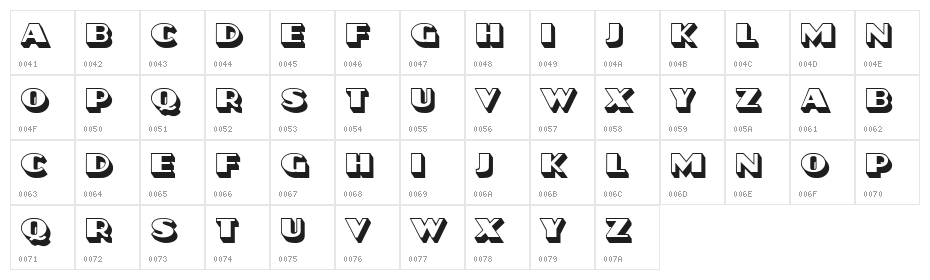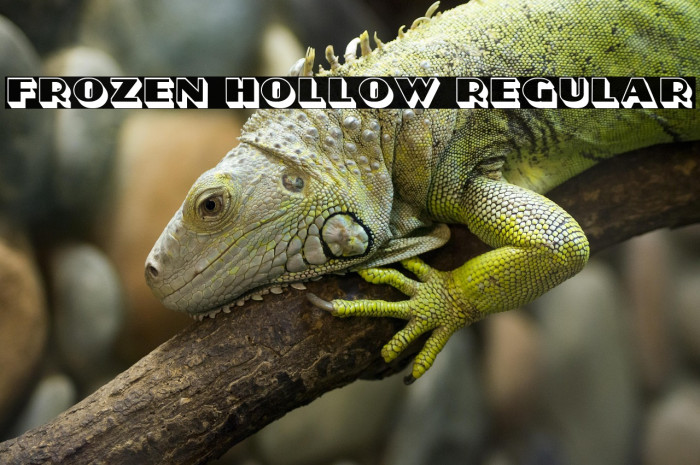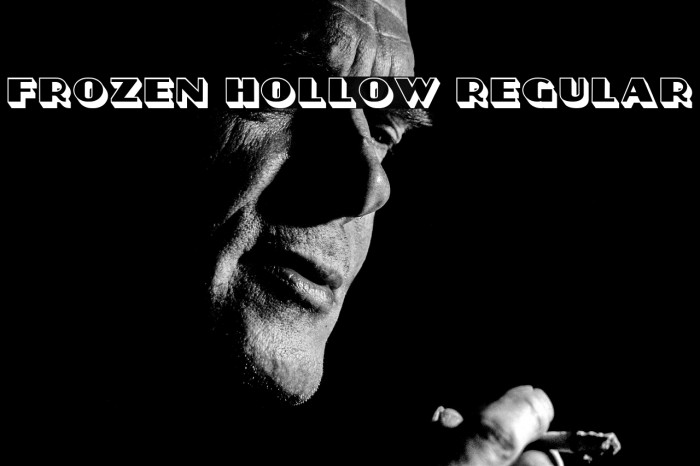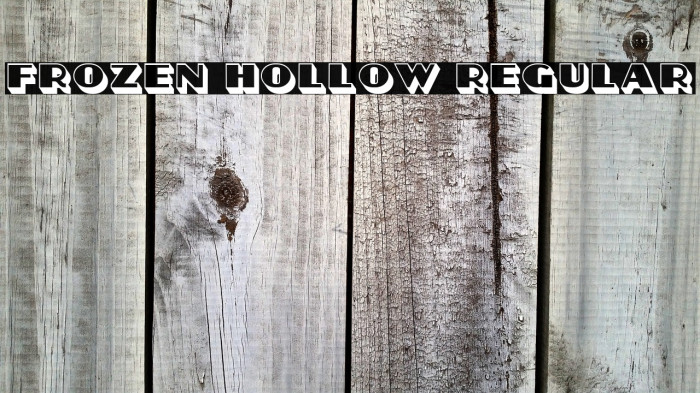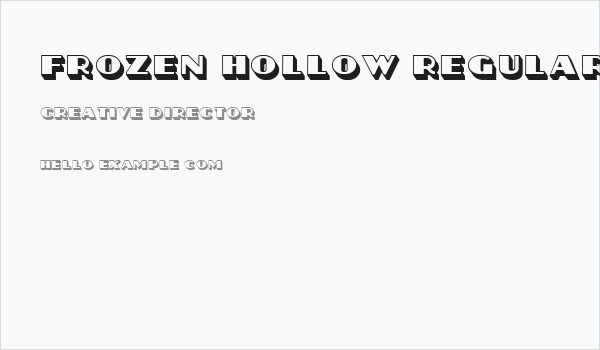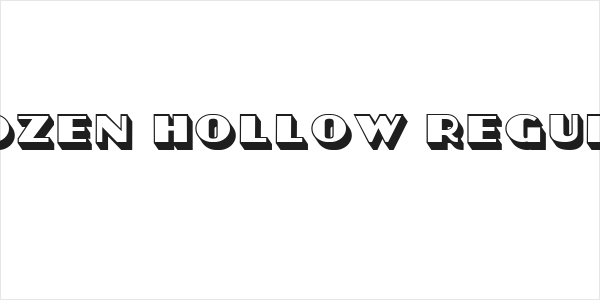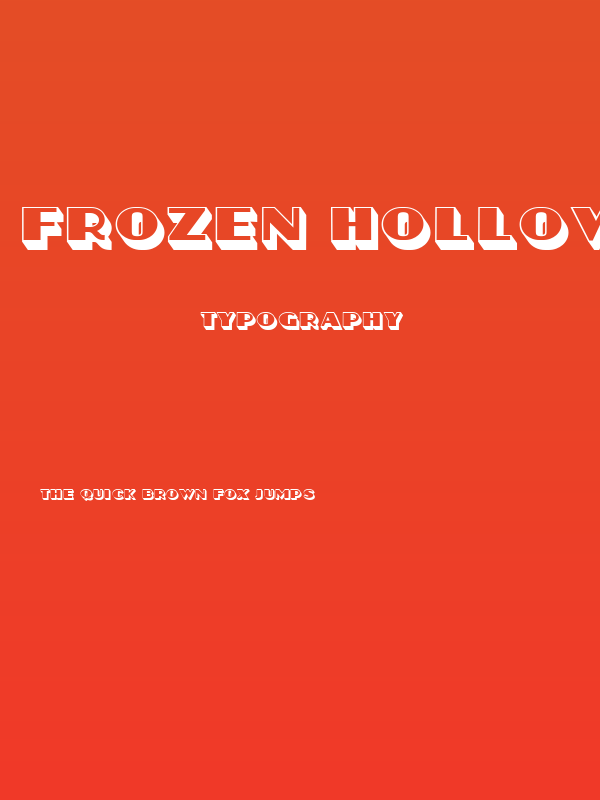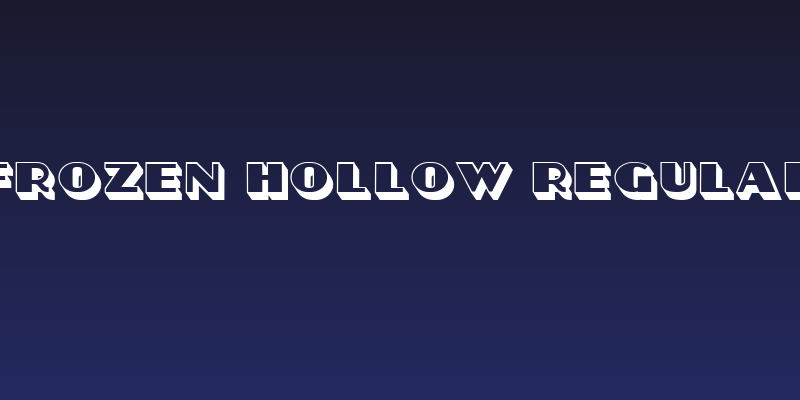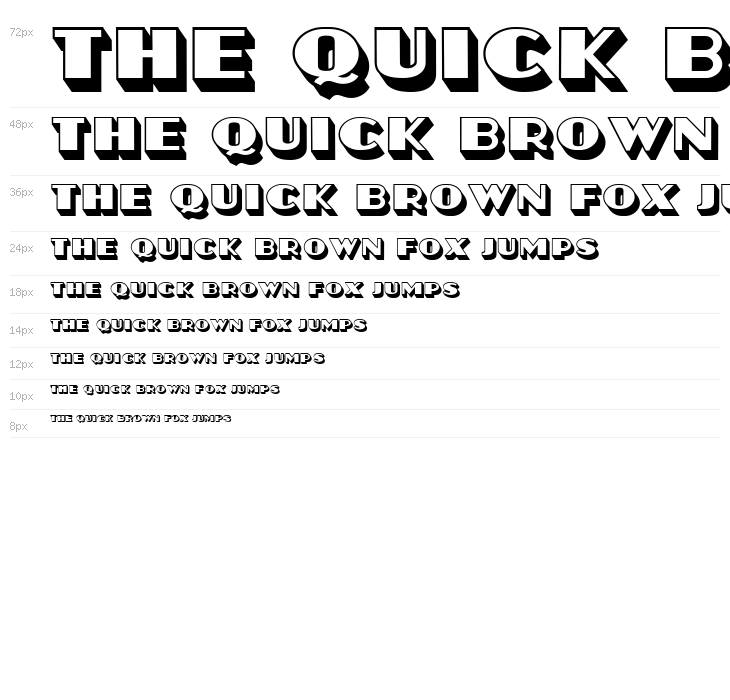
Frozen Hollow Regular Font
Frozen Hollow Regular Description
This font features a bold, three-dimensional appearance with a shadow effect that gives it a striking and impactful look. The characters are uppercase, with a consistent thickness and a clean, geometric design. The shadowing adds depth, making it ideal for attention-grabbing headlines or titles. Its boldness and unique style make it stand out, while the geometric shapes ensure readability. The font's design is modern and dynamic, suitable for projects that require a strong visual impact.
| Proposed Projects | Ideal for posters, logos, and branding materials that require a bold and modern aesthetic. |